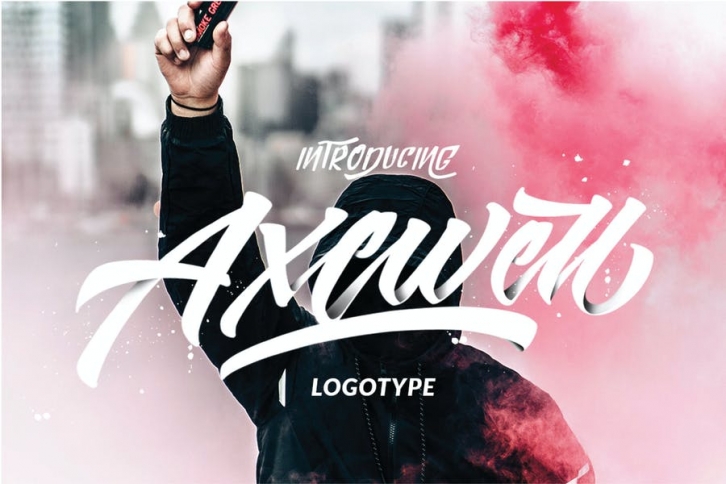
Axewell is a hand brush typeface, with authentic Clean Brush imperfections, and a very bouncy baseline It has a perfectly paired complimentary marker font , and a super handy set of bonus Swash. Ideal for logos, handwritten quotes, product packaging, header, poster, merchandise, social media & greeting cards.